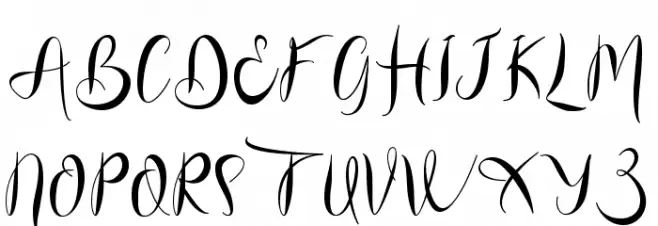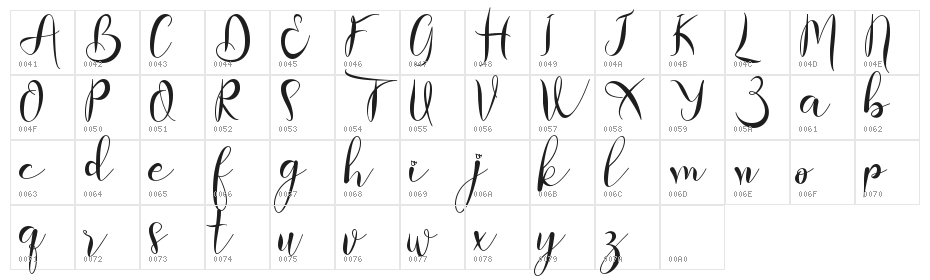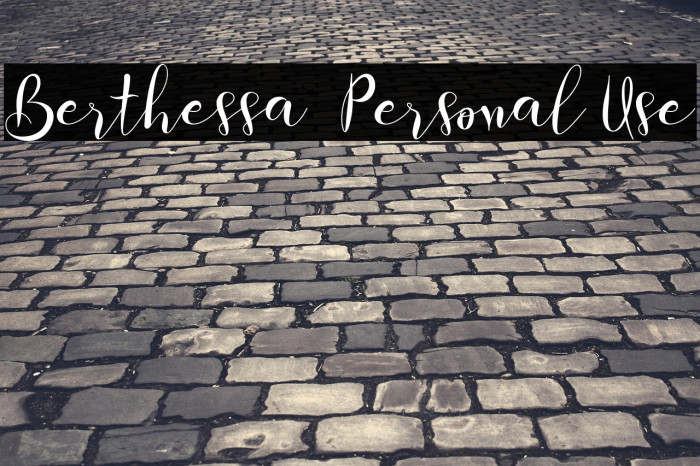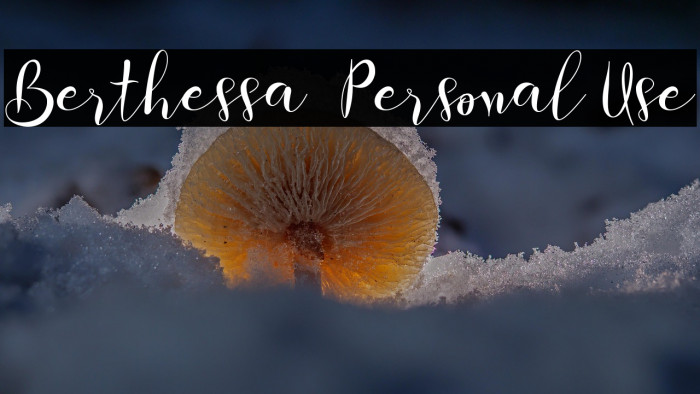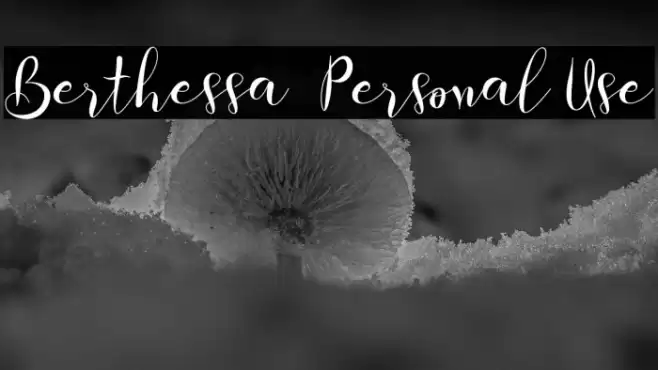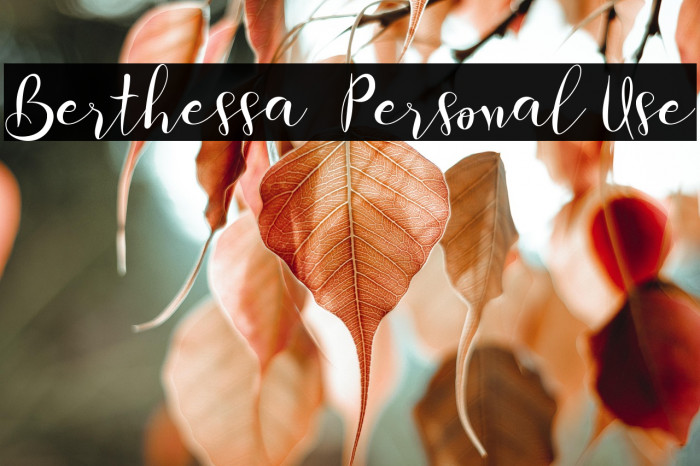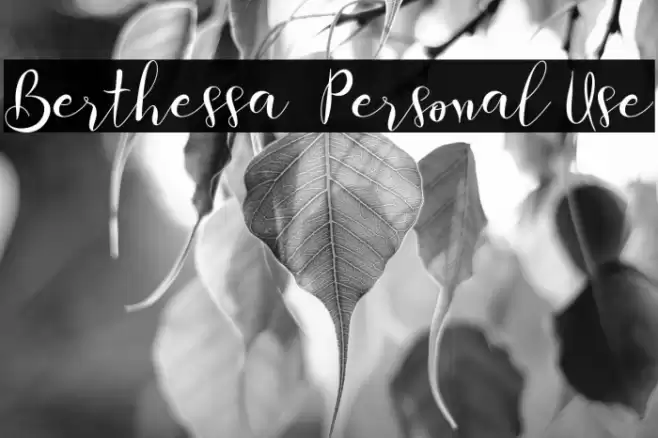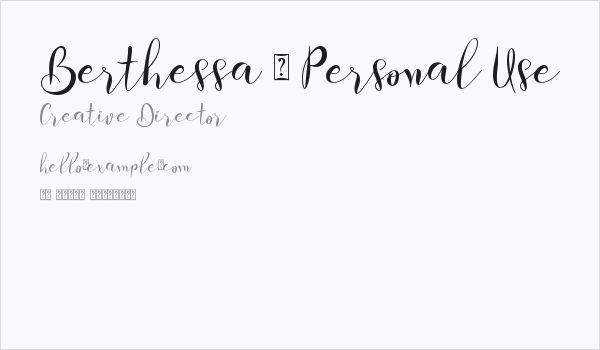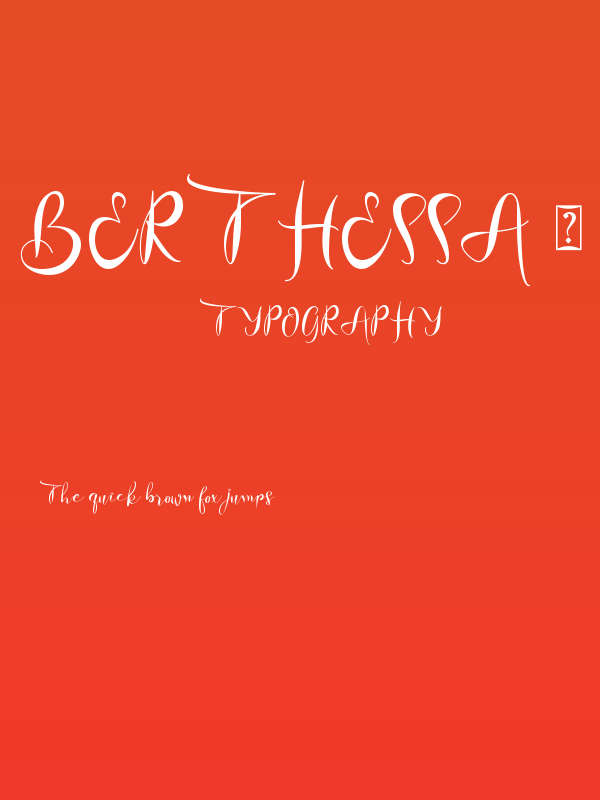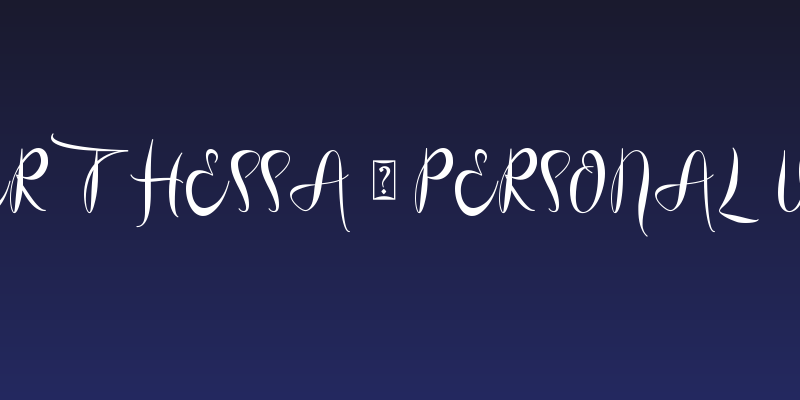
Berthessa - Personal Use Font
Berthessa - Personal Use Description
This font features an elegant and flowing script style, characterized by its smooth, cursive lines and artistic flourishes. The uppercase letters are tall and graceful, with sweeping curves and loops that give a sense of movement and fluidity. The lowercase letters maintain a consistent style, with some characters featuring unique embellishments, such as small hearts on the 'i' and 'j'. The numbers and special characters are designed to match the overall aesthetic, with a playful yet sophisticated appearance. This font is ideal for projects that require a touch of elegance and personality, such as invitations, greeting cards, and branding materials.
| Proposed Projects | Ideal for wedding invitations, greeting cards, branding materials, and decorative signage. |